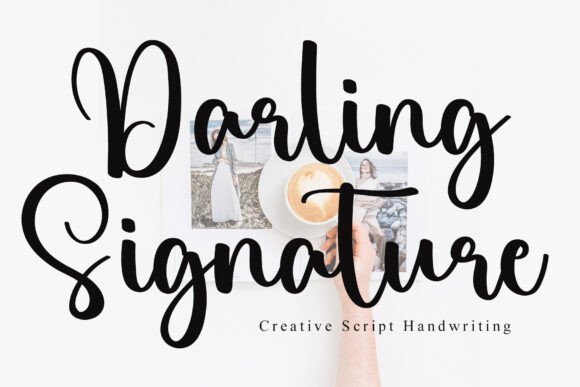
Unlock the Magic of Handwritten Elegance
Have you ever stared at a blank page, pen in hand, and felt the urge to create something beautiful? The thrill of bringing a creative idea to life is a feeling we’ve all experienced at some point. For designers, this moment is a daily occurrence, and it’s what drives them to push the boundaries of their craft.
That’s where the Darling Signature Font comes in – a carefully crafted, handwritten font designed to add a touch of elegance to any design. Whether you’re creating graphics for Instagram, calligraphy scripts for DIY projects, or simply want to add a personal touch to your branding, this font is the perfect companion. With its unique, flowing style, the Darling Signature Font is a valuable tool for designers looking to elevate their work and make it truly stand out.
Darling Signature Font Key Features
- Font Style: Script, elegant, and cursive, ideal for signatures and handwritten text.
- Character Set: Supports a wide range of languages, including Latin, Cyrillic, and Greek alphabets, making it a versatile choice for global applications.
- Unique Characteristics: Features a flowing, organic design with subtle flourishes and swashes, adding a touch of personality and elegance to any text.
Darling Signature Font Review
I recently had the chance to work with the Darling Signature Font, and I must say it’s a unique addition to any design project. Here’s my honest take on this stylish font.
- Elegant feel**: The Darling Signature Font exudes an air of sophistication, making it perfect for high-end branding and luxury designs.
- Versatile**: This font is suitable for a wide range of projects, from wedding invitations to corporate identities.
- Well-crafted**: The font’s letterforms are well-designed, with a focus on readability and aesthetics.
- Limited language support**: Unfortunately, the Darling Signature Font only includes a basic character set, which might limit its use in multilingual projects.
- Not ideal for body text**: While the font looks stunning in headlines and titles, it may not be the best choice for large blocks of body text due to its ornate nature.
The Darling Signature Font is a beautiful addition to any design arsenal, offering a touch of elegance and sophistication. However, its limitations should be considered when choosing this font for your project. Overall, I’d recommend it for high-end branding and special occasion designs.
For the best results, use the Darling Signature Font for titles, headings, and logo designs. It’s ideal for creative, modern, and feminine designs. To get the most out of it, pair the font with bold colors and elegant graphics.